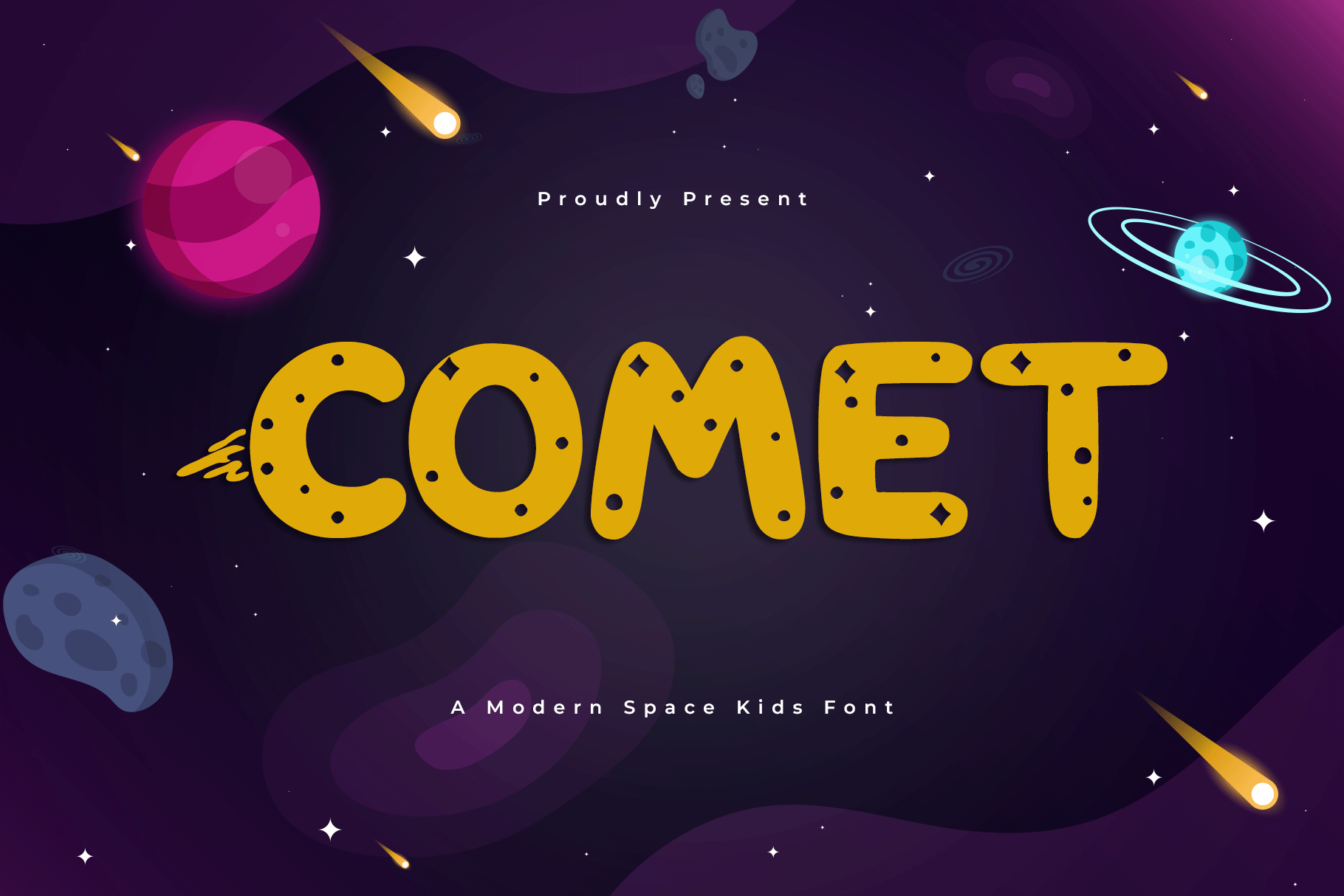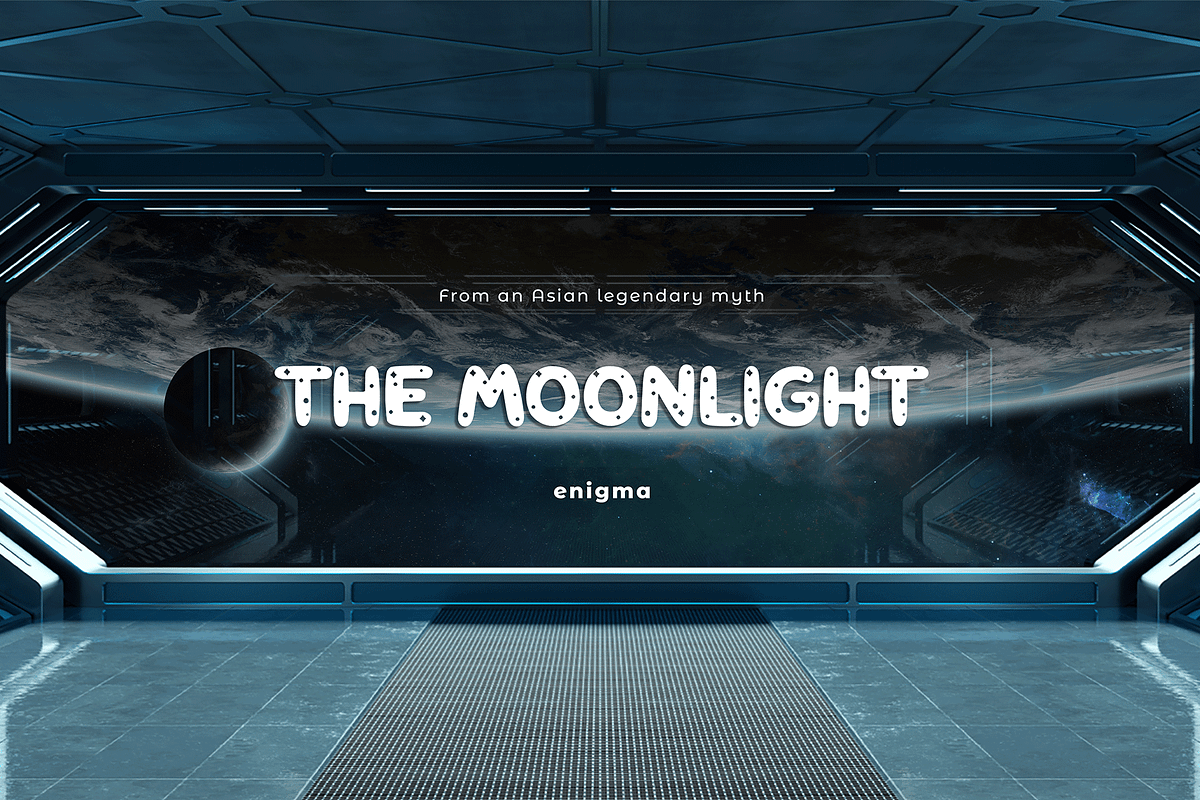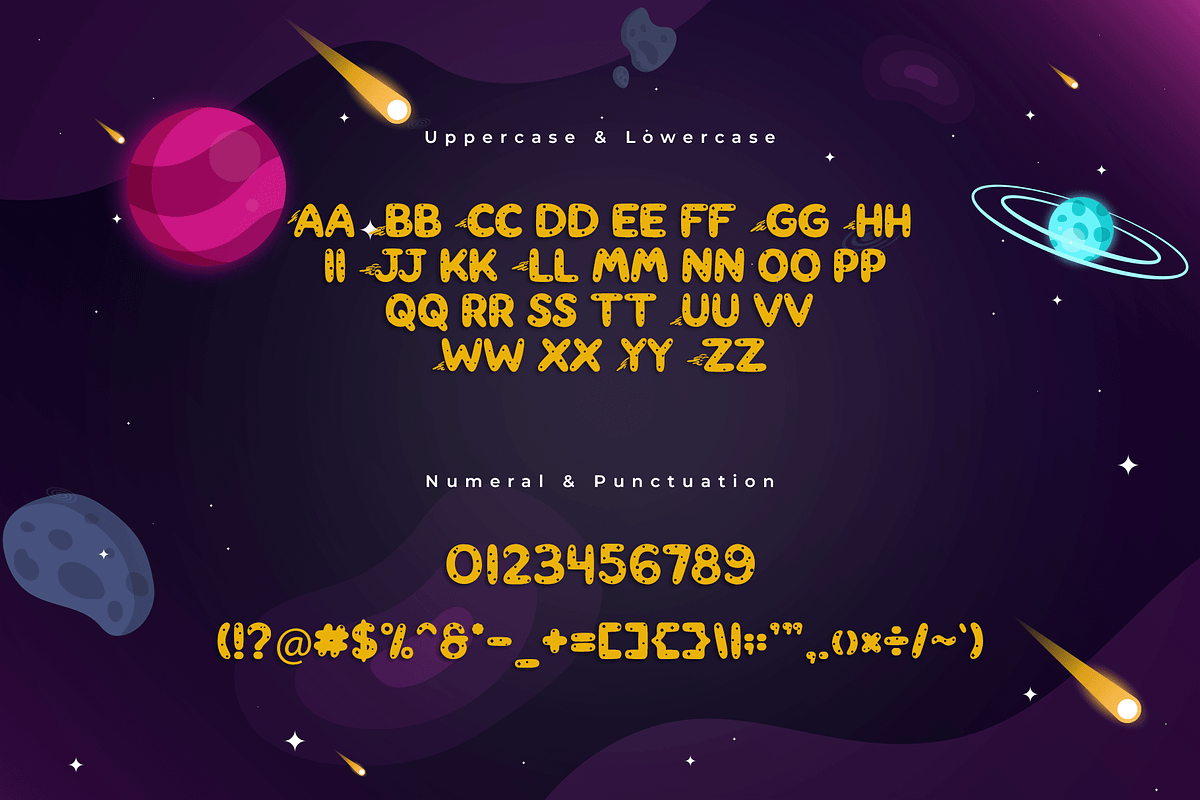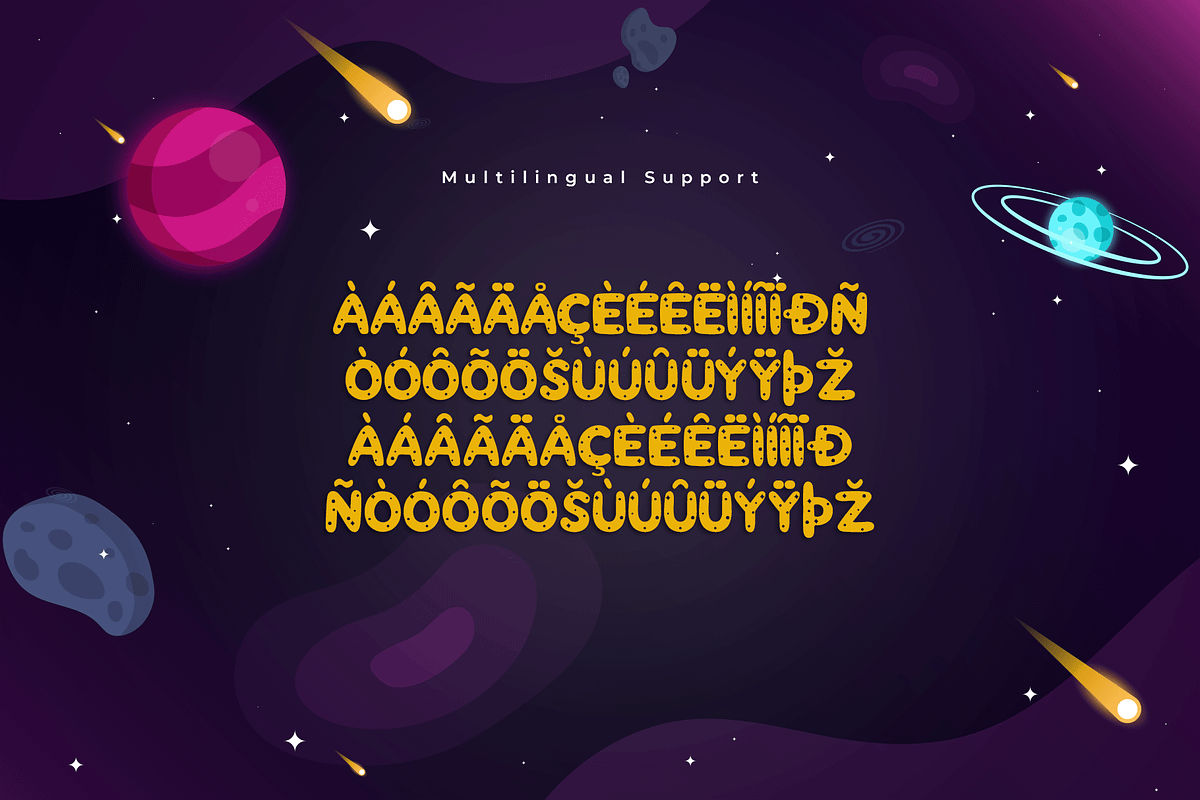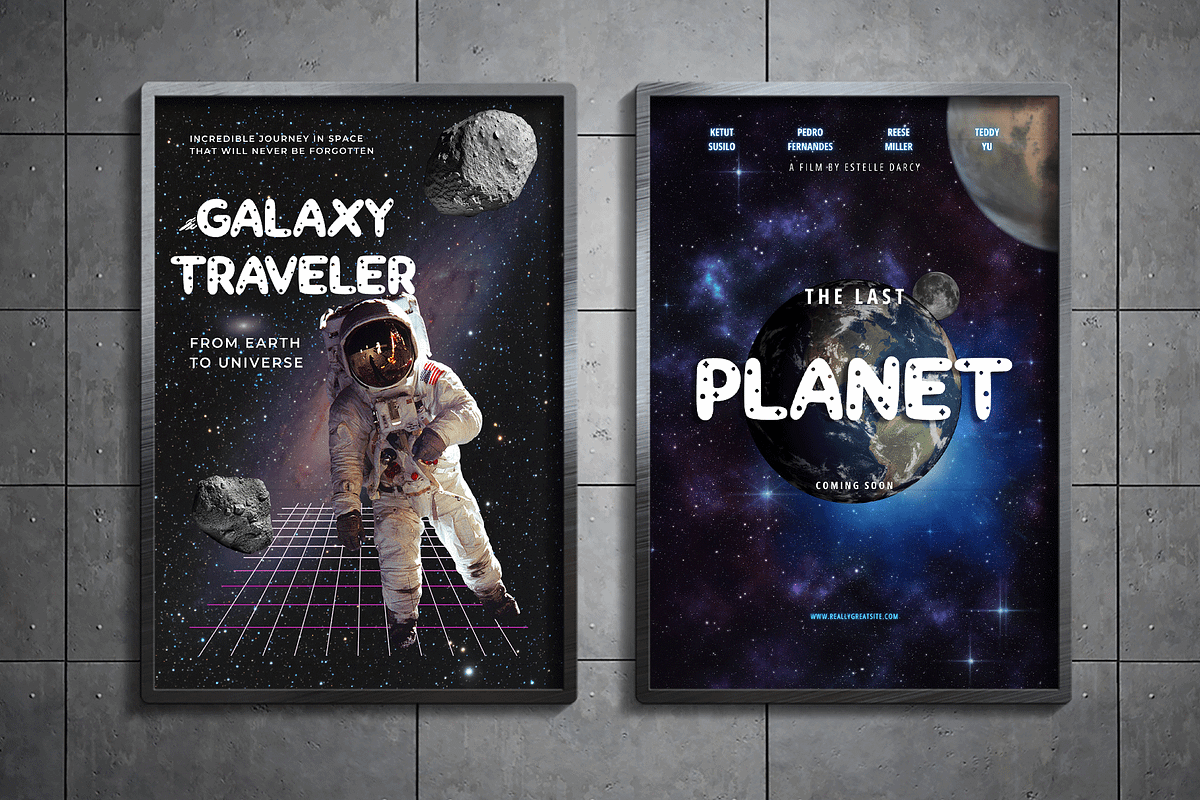
Comet - A Modern Space Kids Font
Zoom through the galaxy with Comet, a modern space-themed font that brings brightness and fun to every kids’ design. Featuring dynamic letterforms with whimsical details, this font is ideal for space-themed projects, party invitations, posters, and playful branding.
Packed with stylistic alternates and multilingual support, Comet transforms ordinary designs into celestial masterpieces. Whether it’s a storybook about space adventures or an educational science worksheet, this font is sure to shine in every project.